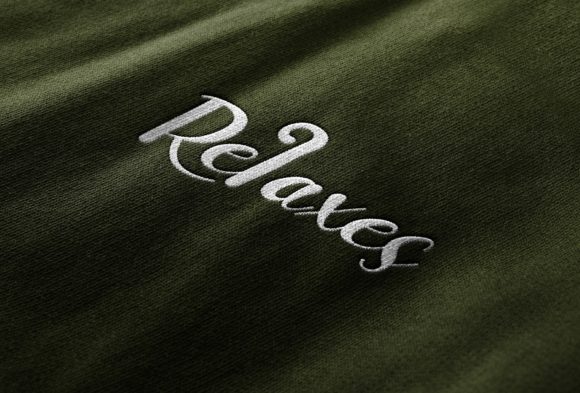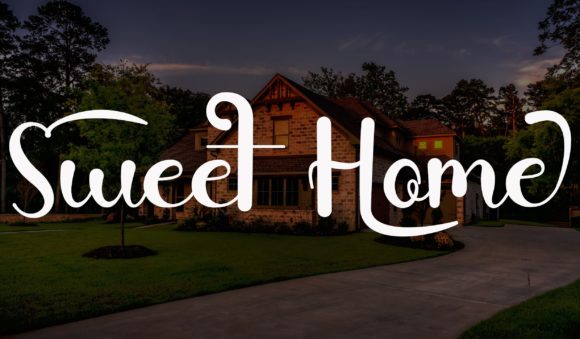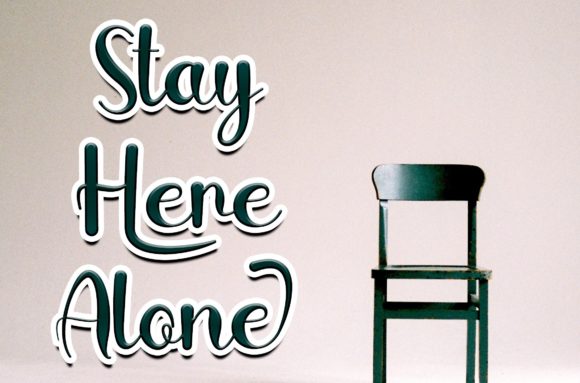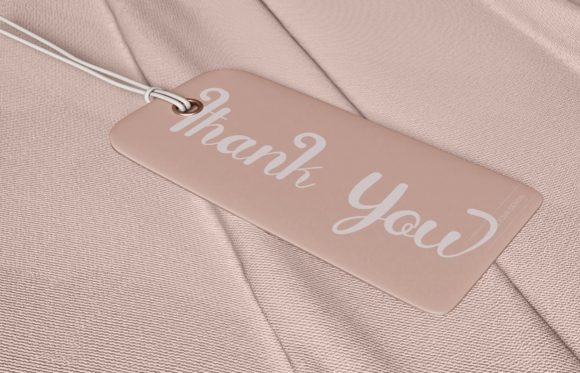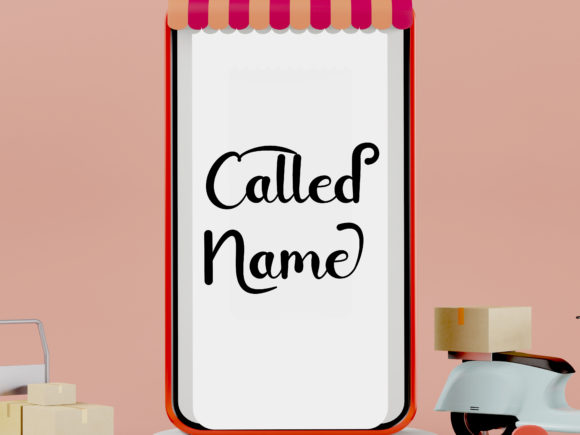
The Designer’s Delight: Unpacking the Elegance of Called Name Font
I’ll never forget the moment I stumbled upon the perfect font for a client’s luxury branding project. I had been scouring through countless font libraries, but nothing seemed to fit the bill – until I discovered Called Name Font. Its elegant, handwritten strokes instantly elevated my design, and I knew I had found the one. In this article, I’ll share my experience with Called Name Font, its features, and how to make the most of it in your design projects.
An Honest Review of Called Name Font
Called Name Font is a well-balanced handwritten font that exudes luxury and sophistication. Here are some aspects that I love about it:
• ✨ Elegant and refined strokes that add a touch of luxury to any design
• ✅ PUA encoded for easy access to glyphs and ligatures
• ✅ Highly versatile and suitable for various design projects, from branding to packaging
• ✅ Well-suited for both digital and print designs
While Called Name Font is an excellent choice, there are a few minor quirks to be aware of:
• ⚠️ Limited availability of condensed or extended styles, which may limit its use in certain projects
• 🤔 Some users may find the font a bit too ornate for very casual or playful designs
The Story Behind Called Name Font
Called Name Font was designed with the intention of creating a luxurious, handwritten font that would add a touch of elegance to any design project. The designer aimed to create a font that would be both versatile and refined, making it suitable for a wide range of applications.
Font Name Called Name Font
Author fahmistudio99
What is PUA encoding, and how does it benefit Called Name Font? PUA (Private Use Area) encoding allows designers to access glyphs and ligatures easily, making it simpler to use the font’s advanced features.
Is Called Name Font suitable for digital designs? Yes, Called Name Font is optimized for both digital and print designs, making it a versatile choice for various projects.